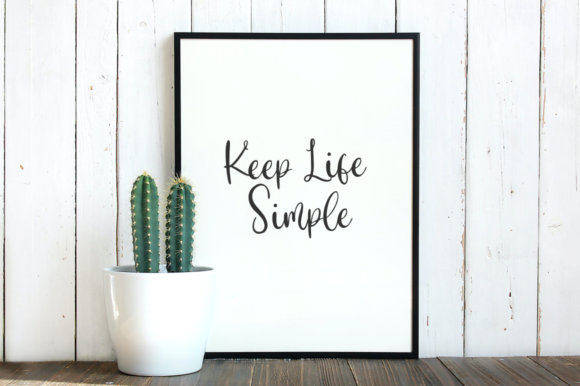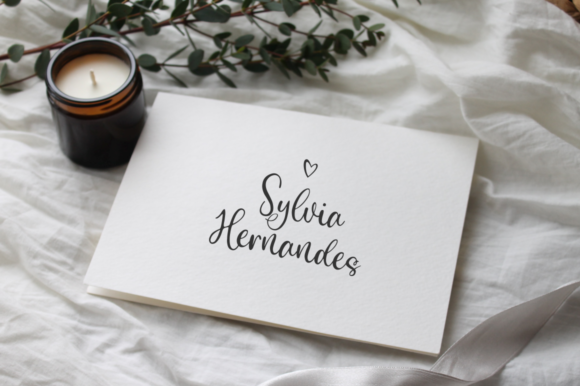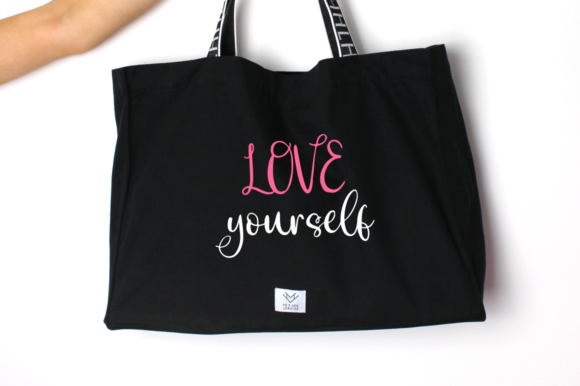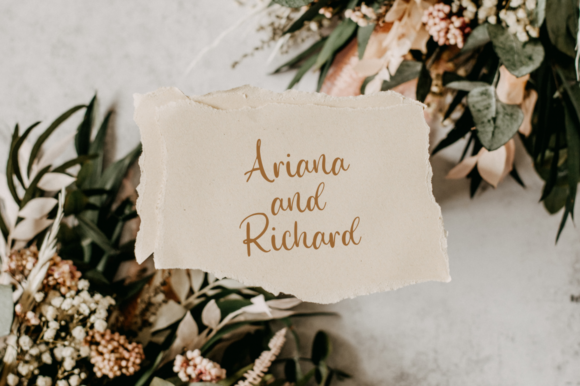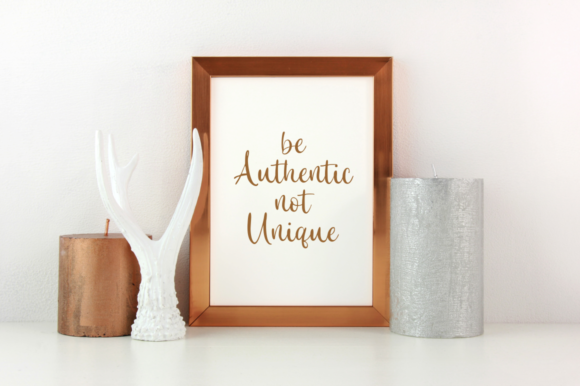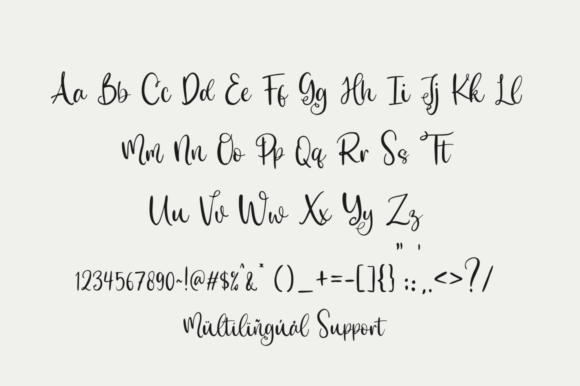
Introduction to Magical Spring Font
Have you ever stumbled upon the perfect font that makes your creative project shine? For many designers, it’s that elusive moment when everything comes together – the right color palette, the perfect typography, and the overall aesthetic that leaves a lasting impression. I’m sure you’ve experienced that ‘aha’ moment, and I’m excited to share with you a new design resource that will make your creative endeavors sparkle: the Magical Spring Font.
As a valuable addition to your design arsenal, the Magical Spring Font is perfect for crafting, branding, and a multitude of other creative projects. Its high-quality, script design makes it ideal for invitations, stationery, and even social media posts. With a free download available, you can access this fantastic design resource and elevate your work with a touch of magic.
Whether you’re working on a special event, product packaging, or photography project, the Magical Spring Font will bring a unique touch to your designs. Its transparent background and versatility make it a go-to choice for designers who demand the highest quality in their work.
Magical Spring Font
- Includes 12 unique characters, each with intricate details and subtle textures, adding a touch of magic to any design.
- Perfect for spring-themed designs, Easter projects, and other seasonal creative endeavors.
Honest Review: Magical Spring Font
As a designer, I’m always on the lookout for high-quality design resources that can help me elevate my creative projects. I recently stumbled upon the Magical Spring Font, and I’m excited to share my honest review.
- ✨ The font has a beautiful, whimsical design that’s perfect for spring-themed projects.
- ✨ The font is highly customizable, allowing me to adjust the size, color, and style to fit my design needs.
- ⚠️ The font may not be suitable for formal or professional projects due to its playful, whimsical design.
Overall, I’m really impressed with the Magical Spring Font. It’s a high-quality design resource that’s perfect for creative projects, and the free download option makes it a great value. I would definitely recommend it to other designers looking for a unique and playful font.
Magical Spring Font is perfect for a variety of creative projects, including greeting cards, social media graphics, and blog posts. Its high-quality design makes it a great resource for any design project.